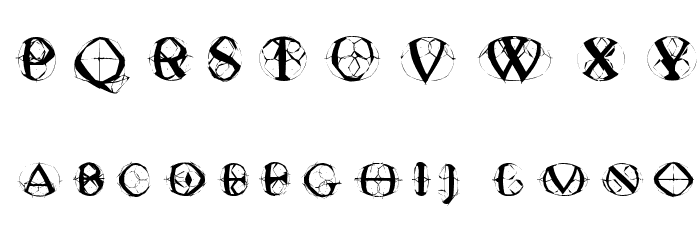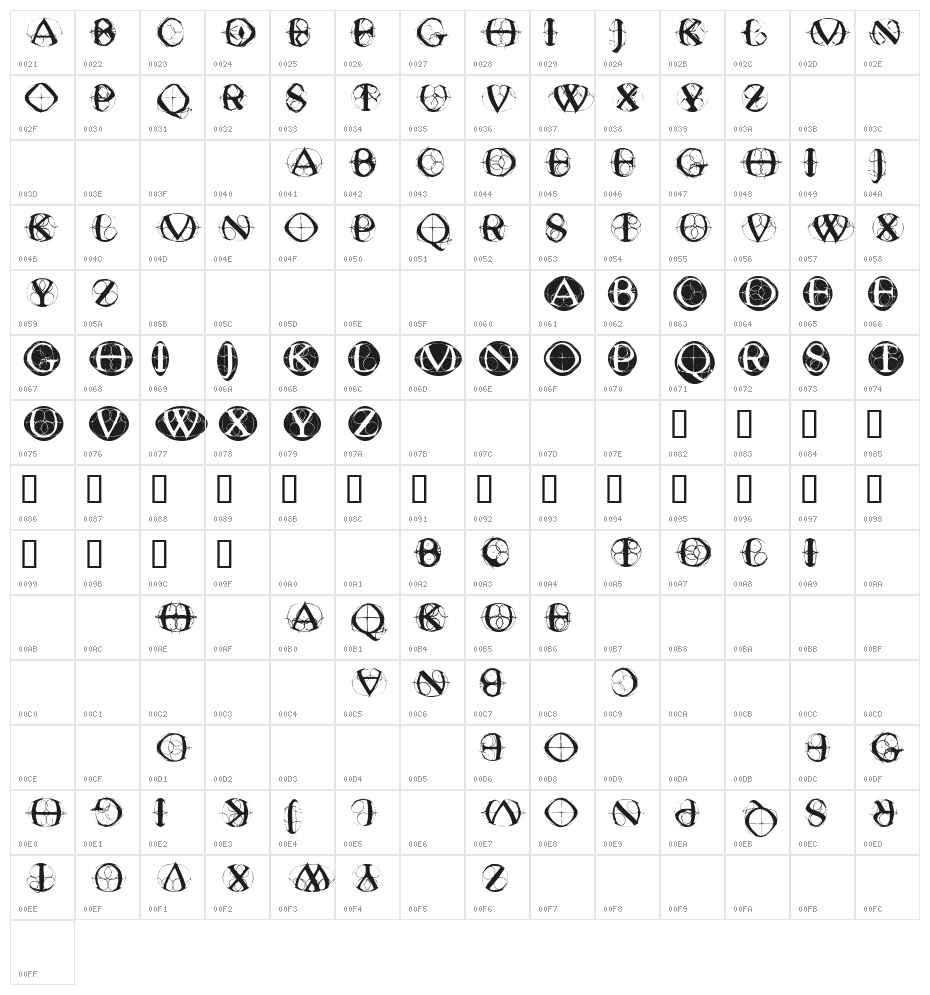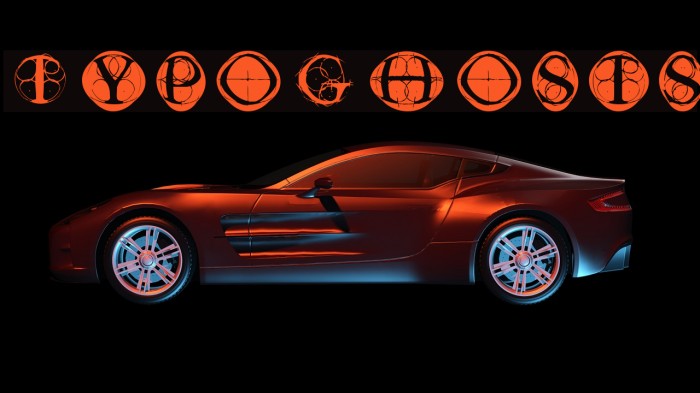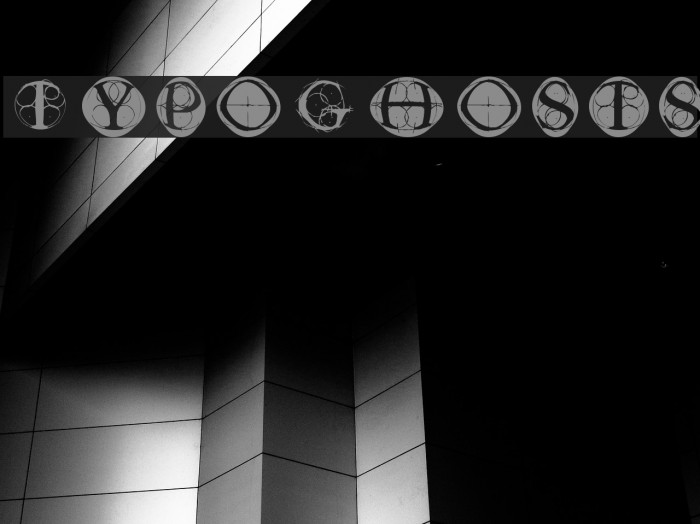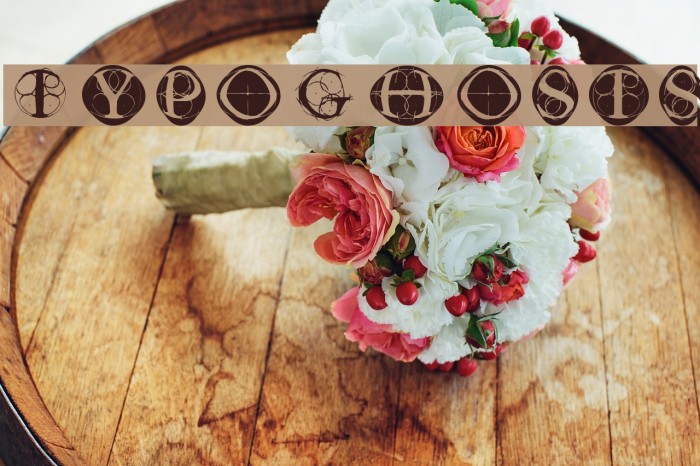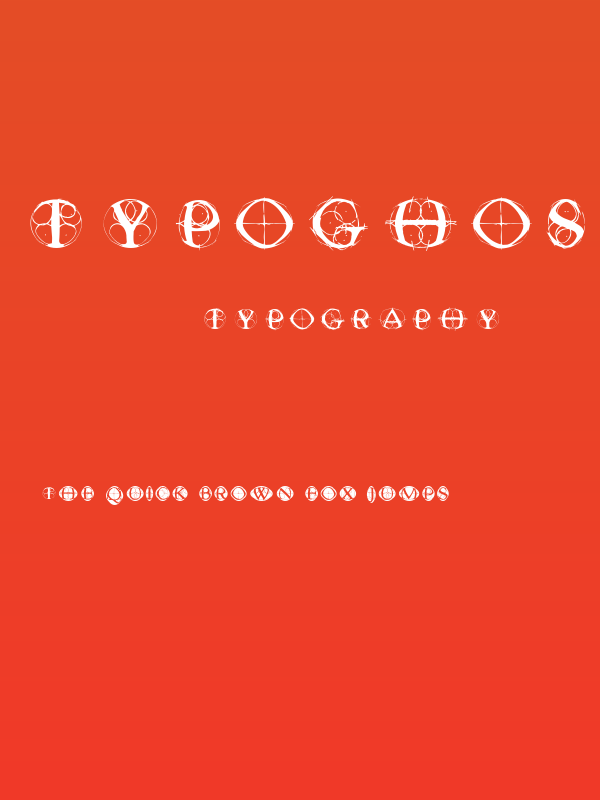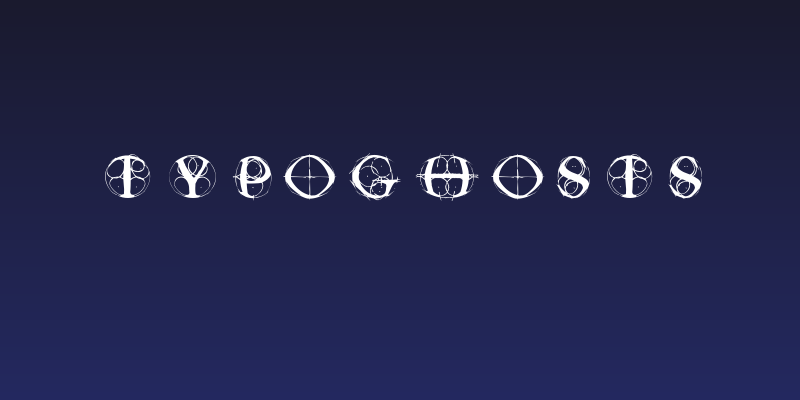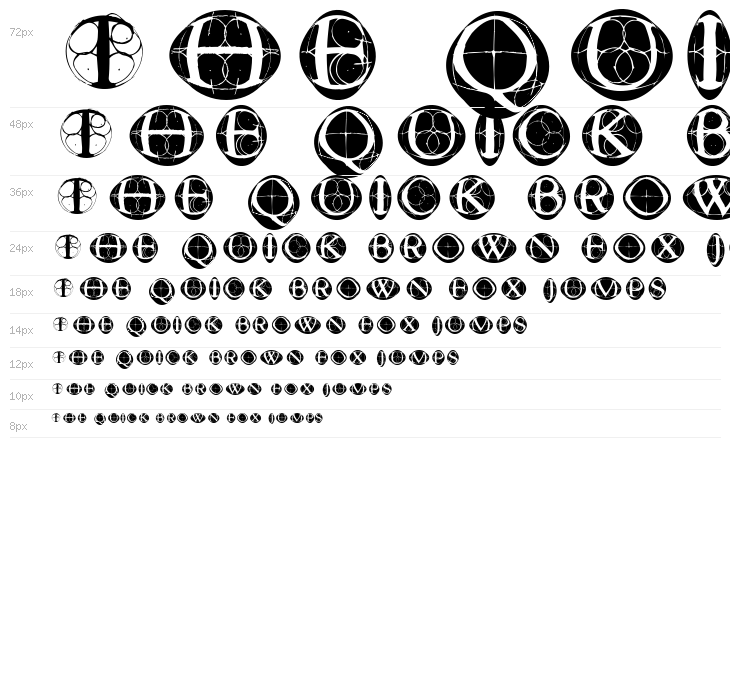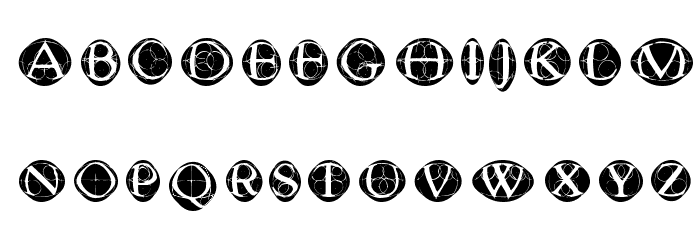
TypoGhosts Font
TypoGhosts Description
This font features a unique and haunting design, with each character enclosed in a circular form and adorned with intricate, ghostly lines. The letters appear as if they are part of a mysterious, otherworldly script, giving an eerie and captivating aesthetic. The bold, black circles contrast sharply with the delicate, white linework, creating a striking visual effect. This font is perfect for projects that require a spooky or supernatural theme, as it evokes a sense of mystery and intrigue. The overall style is decorative and highly stylized, making it ideal for creative and artistic applications.
| Use Case | Headlines, Logos, Themed Invitations |
| Proposed Projects | Ideal for Halloween-themed designs, horror movie posters, escape room branding, or any project requiring a spooky, mysterious vibe. |